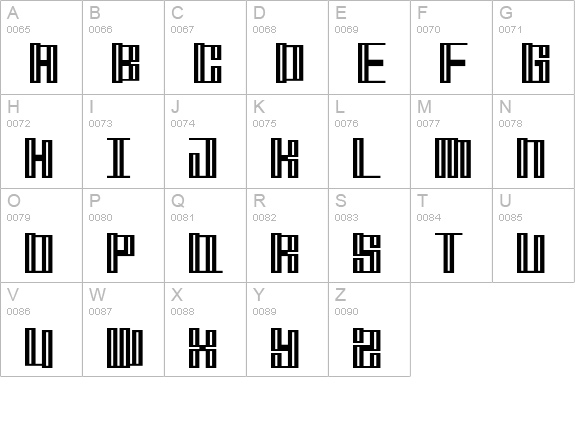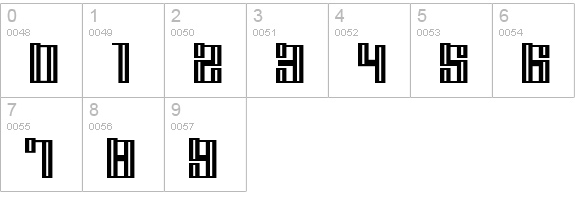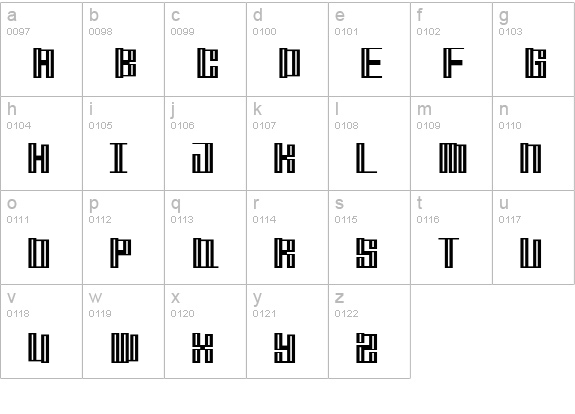
Mischstab Opium River Font Details
Mischstab Opium River font is a captivating and versatile typeface that exudes elegance and sophistication. With its sleek lines and unique design elements, this font is sure to make a statement in any project. Whether you're designing a logo, creating a poster, or crafting a beautiful website, Mischstab Opium River font will bring a touch of class to your work. What's even better is that Mischstab Opium River font is available for free download at FontsMarket.com. You can easily access this stunning font and incorporate it into your designs without any cost. Don't miss out on the opportunity to enhance your projects with the beauty and charm of Mischstab Opium River font. Download it today and elevate your design game to a whole new level.